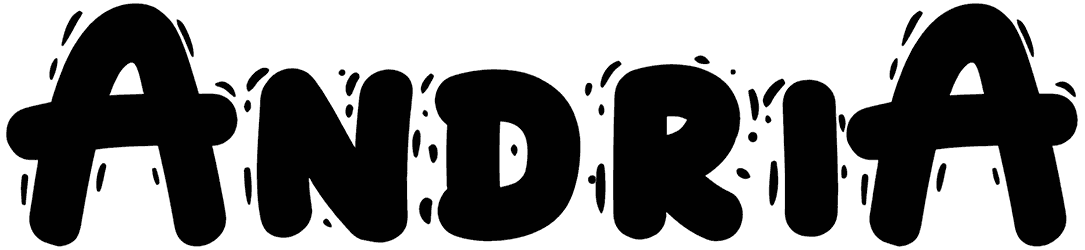
Andria Font
Andria font is like a superhero for your words that can save your ideas from being forgotten, even without lowercase letters. With a touch of fun, this comic font can be used in any design and turn even the most mundane message into an exciting adventure.
Whether you’re writing a comic book, designing a poster, or texting your friends, this fancy font can make an impact. So why settle for plain old fonts when you can have an extraordinary font?